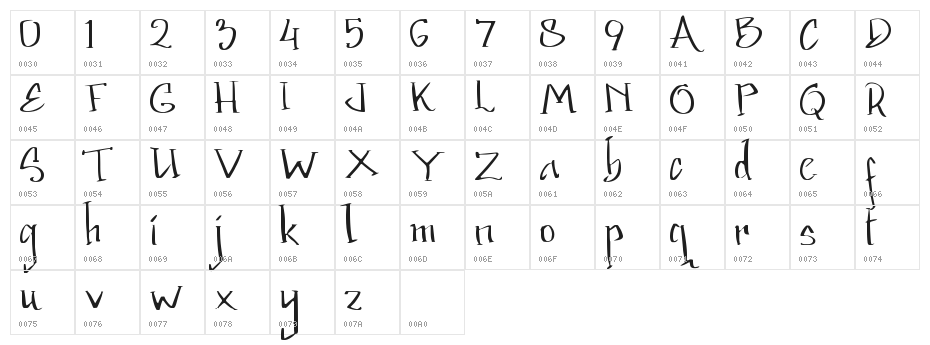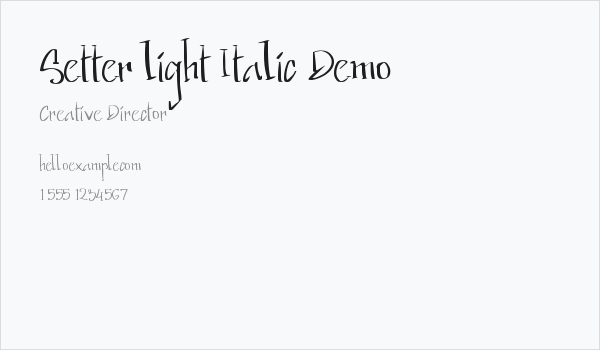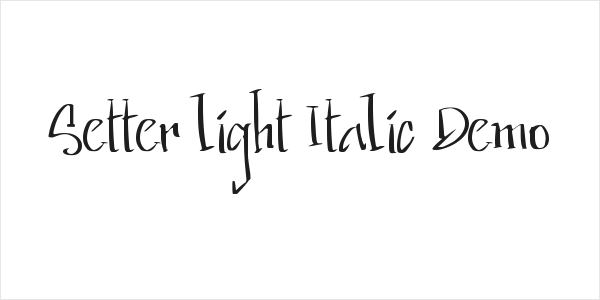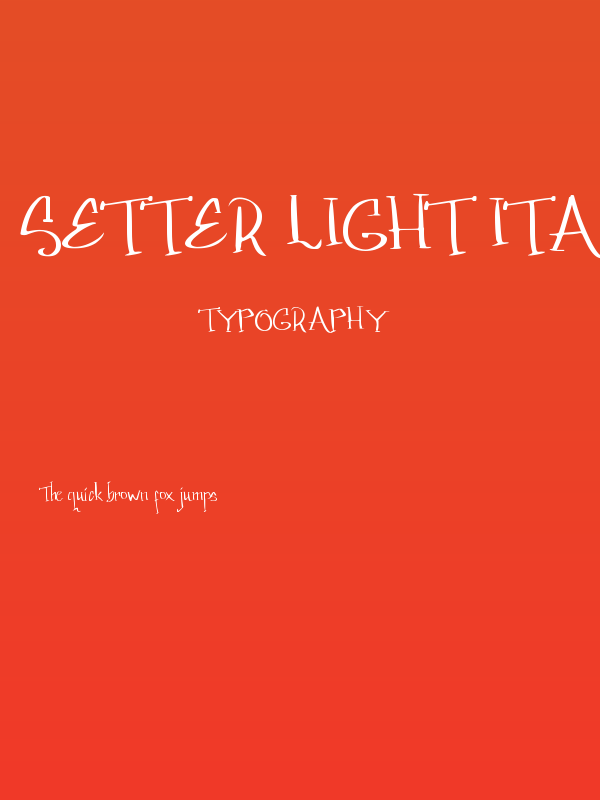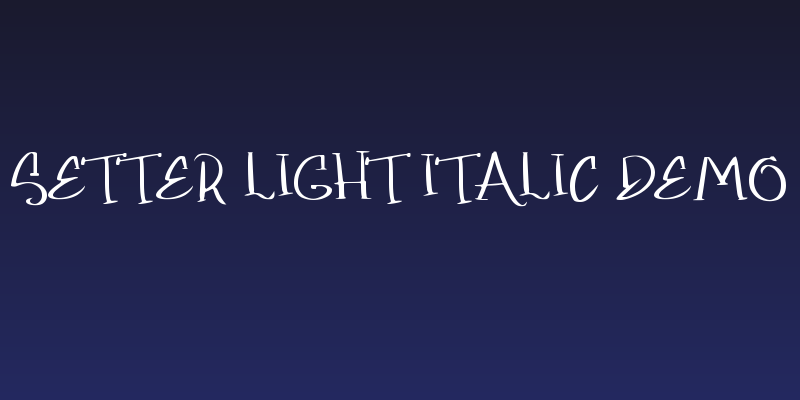
Setter light Italic Demo Font
Setter light Italic Demo Description
This font features a dynamic and expressive style with a handwritten appearance. The characters are slightly slanted, giving it an italicized look, and the strokes vary in thickness, adding a lively and artistic flair. The uppercase letters are bold and prominent, while the lowercase letters maintain a consistent flow with unique, playful curves. The numerals are distinct and maintain the same energetic style, ensuring readability. Special characters are creatively designed, complementing the overall aesthetic. This font is ideal for projects that require a personal touch or a creative, informal vibe.
| Proposed Projects | Ideal for greeting cards, creative posters, artistic branding, and informal invitations. |